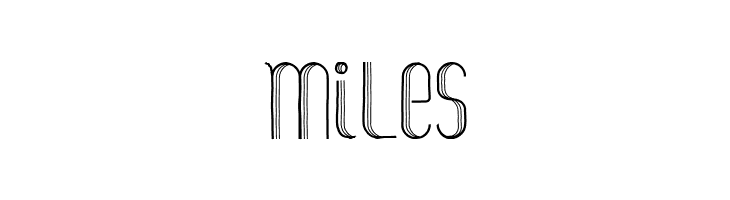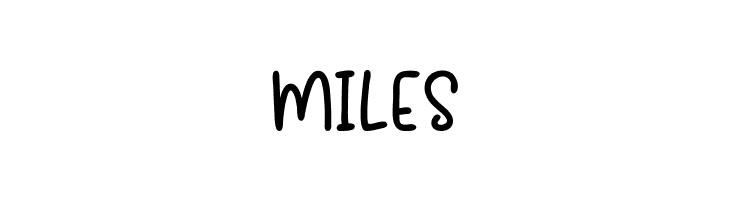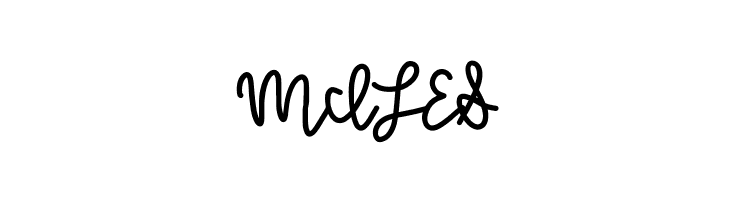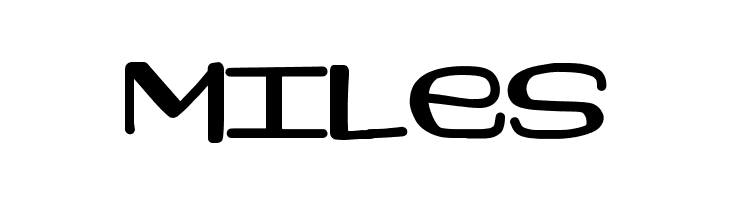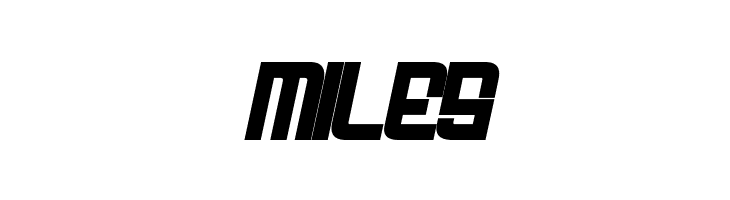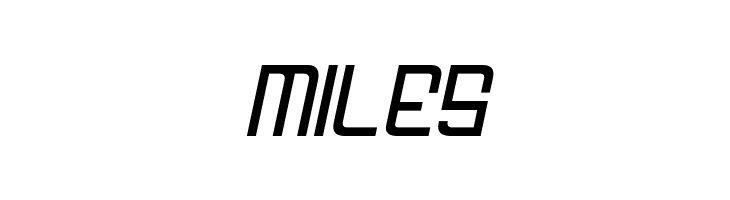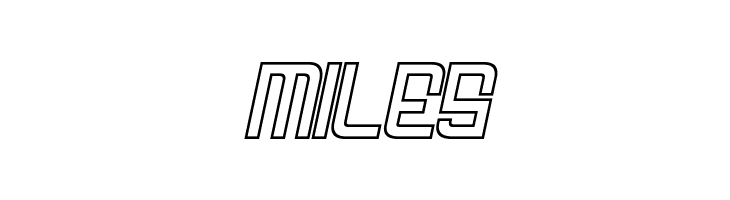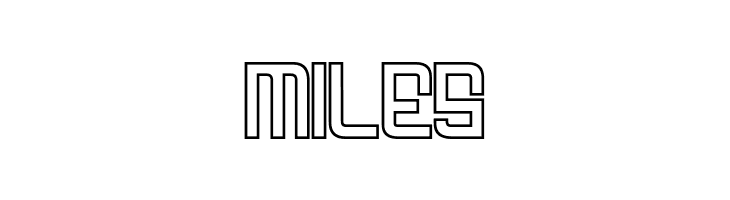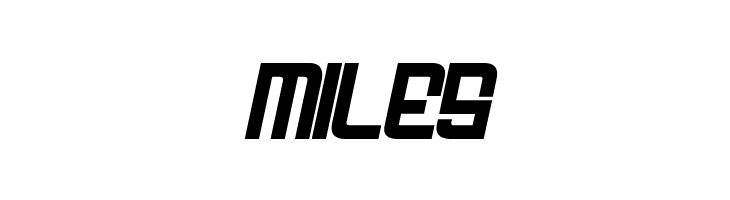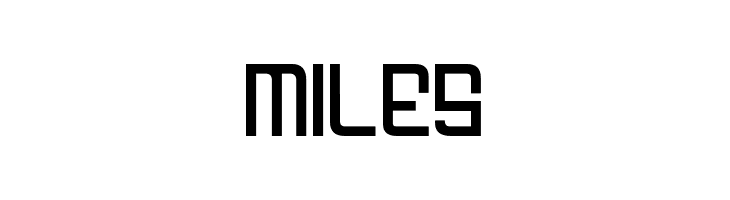
A dynamic and expressive font with sharp, angular strokes and flowing curves.
A modern, geometric font with tall, narrow characters and uniform stroke width.
A modern, multi-line font with a dynamic and geometric style.
A bold, rounded font with a playful and approachable style.
A playful, handwritten font with fluid, connected strokes and a casual style.
A playful, rounded font with bold strokes and smooth curves, perfect for a whimsical look.
A bold, distressed font with a grunge aesthetic and irregular edges.
A playful, rounded font with smooth strokes and a casual, friendly appearance.
A playful, handwritten font with smooth, rounded edges and a casual style.
A playful and casual script font with smooth, flowing lines and rounded edges.
A playful, handwritten script font with a casual and fluid style.
A bold, geometric font with strong, uniform strokes and a modern style.
A bold, italicized font with a futuristic and angular design.
A bold, geometric font with uniform stroke widths and a modern aesthetic.
A bold, italicized font with a modern, angular design.
A bold, angular italic font with a modern, dynamic style.
A sleek, modern italic font with a streamlined and futuristic design.
A bold, geometric font with a modern and industrial style.
A bold, geometric font with a hollow interior and a modern, digital look.
A bold, italic, hollow font with a modern, futuristic style.
A modern, geometric font with a futuristic and structured design.
A hollow, geometric font with a modern, tech-inspired aesthetic.
A modern, italicized, hollow font with geometric and angular design.
A sleek, italicized font with a modern and futuristic design.
A bold, hand-drawn font with irregular, expressive strokes.
A decorative font with a rugged, organic texture and irregular edges.
A bold, modern sans-serif font with excellent legibility and uniform stroke width.
A modern, italic sans-serif font with a clean and dynamic style.
A modern sans-serif outline font with clean lines and balanced proportions.
A modern sans-serif outline font with an italic style, offering a clean and dynamic look.
A bold, high-contrast display font with sharp serifs and a modern style.
A sophisticated serif font with high contrast and elegant serifs.
A sophisticated serif font with high contrast and elegant details.